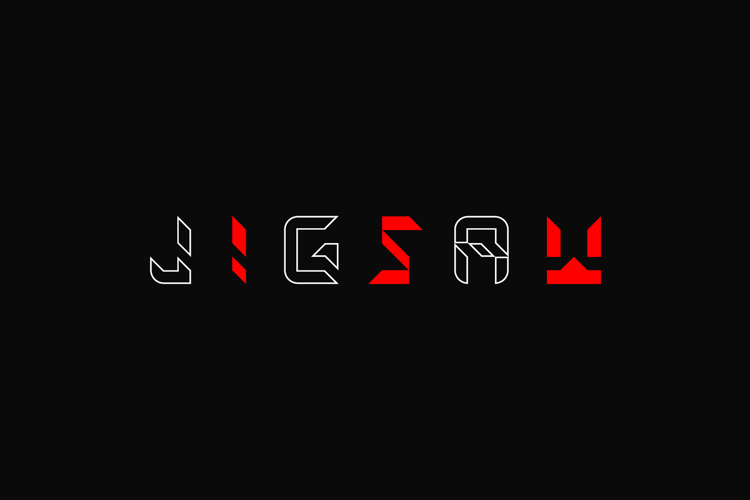
JigSaw Font
This font started as a concept for a college project in 2018, I re-visted the project in 2020 and decided to refine it and create it into an actual font. It is 100% created by me using shapes! It is meant to be a more stylish decorative font. I do believe you can create really interesting compositions with this font.